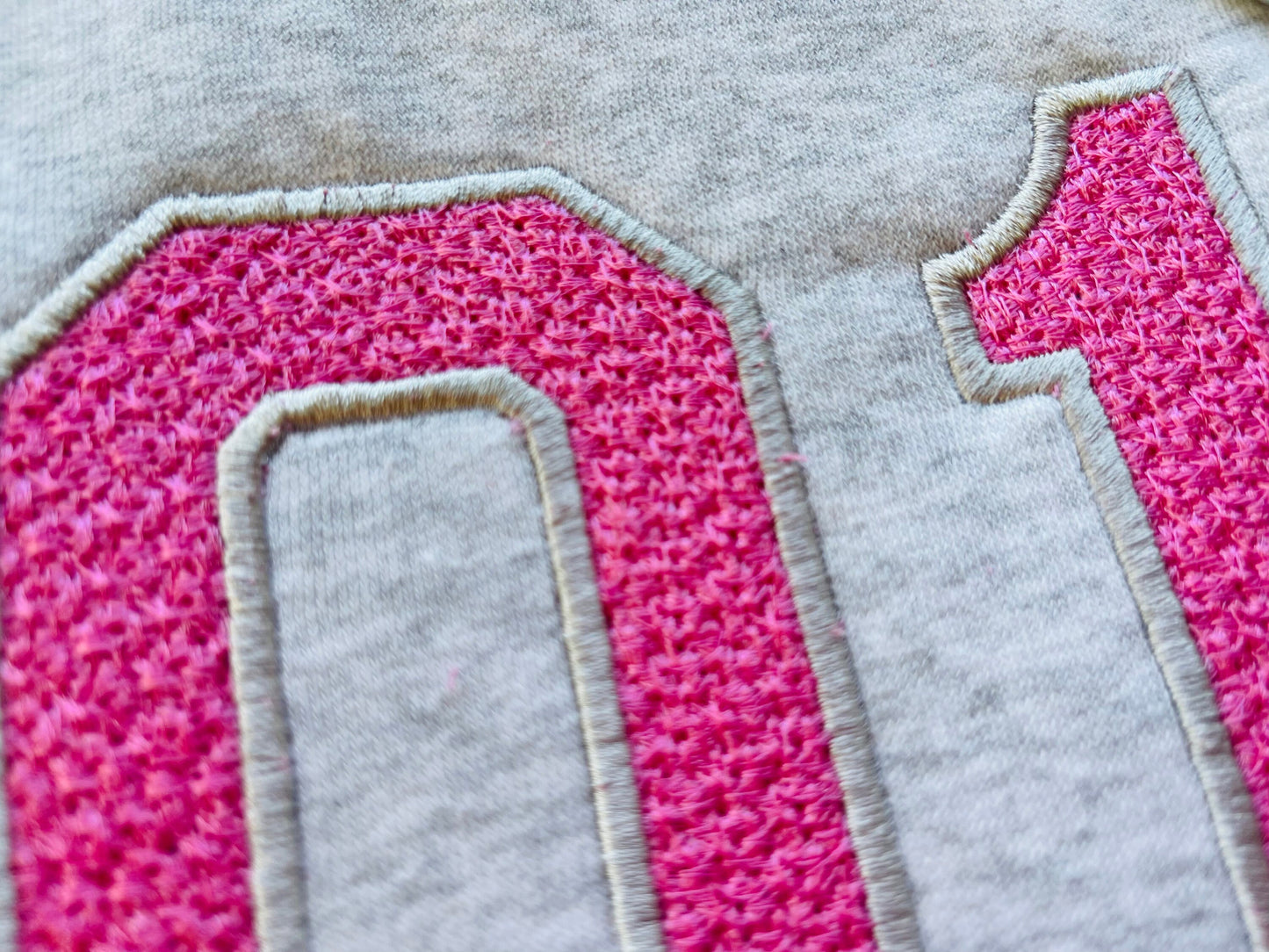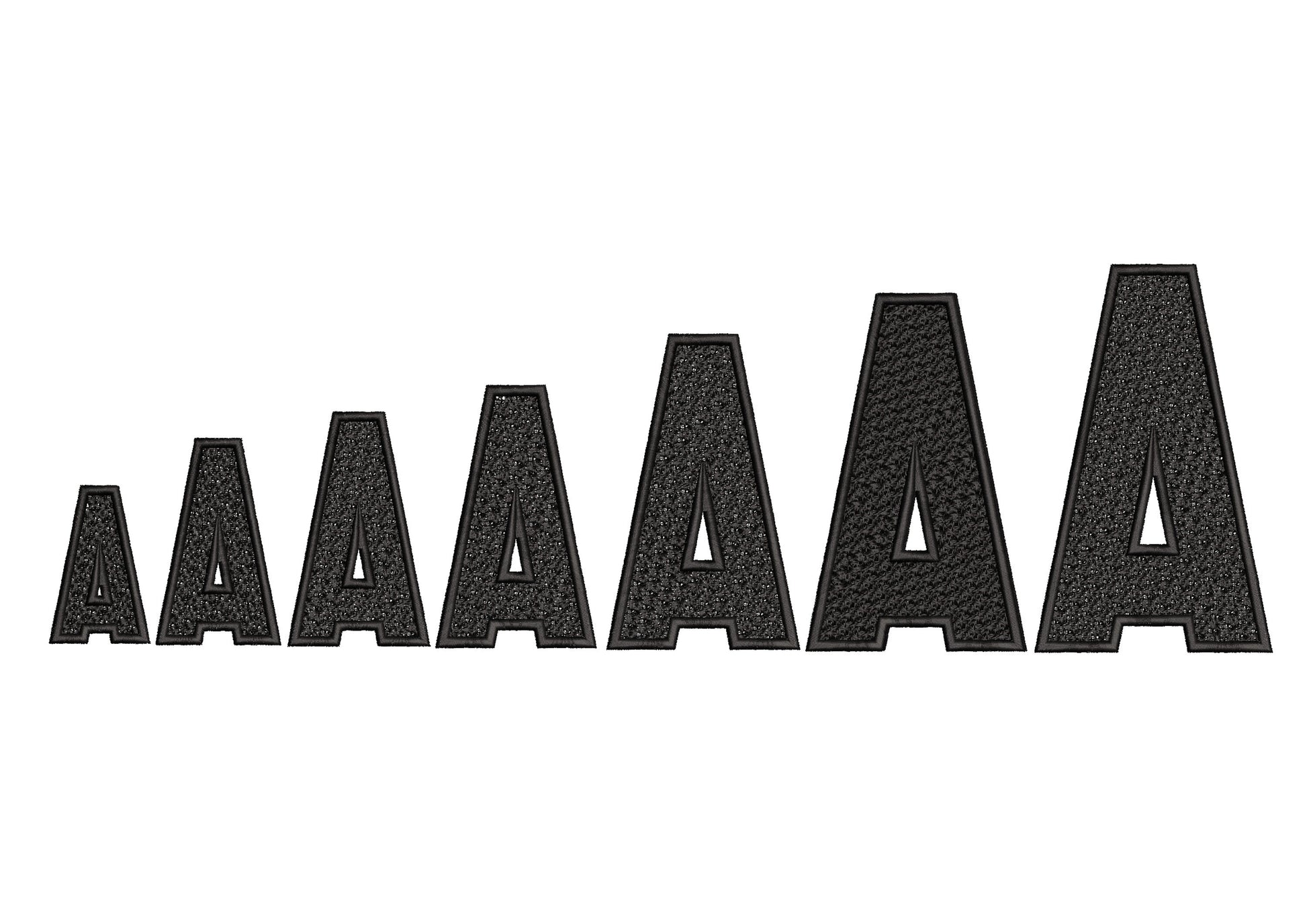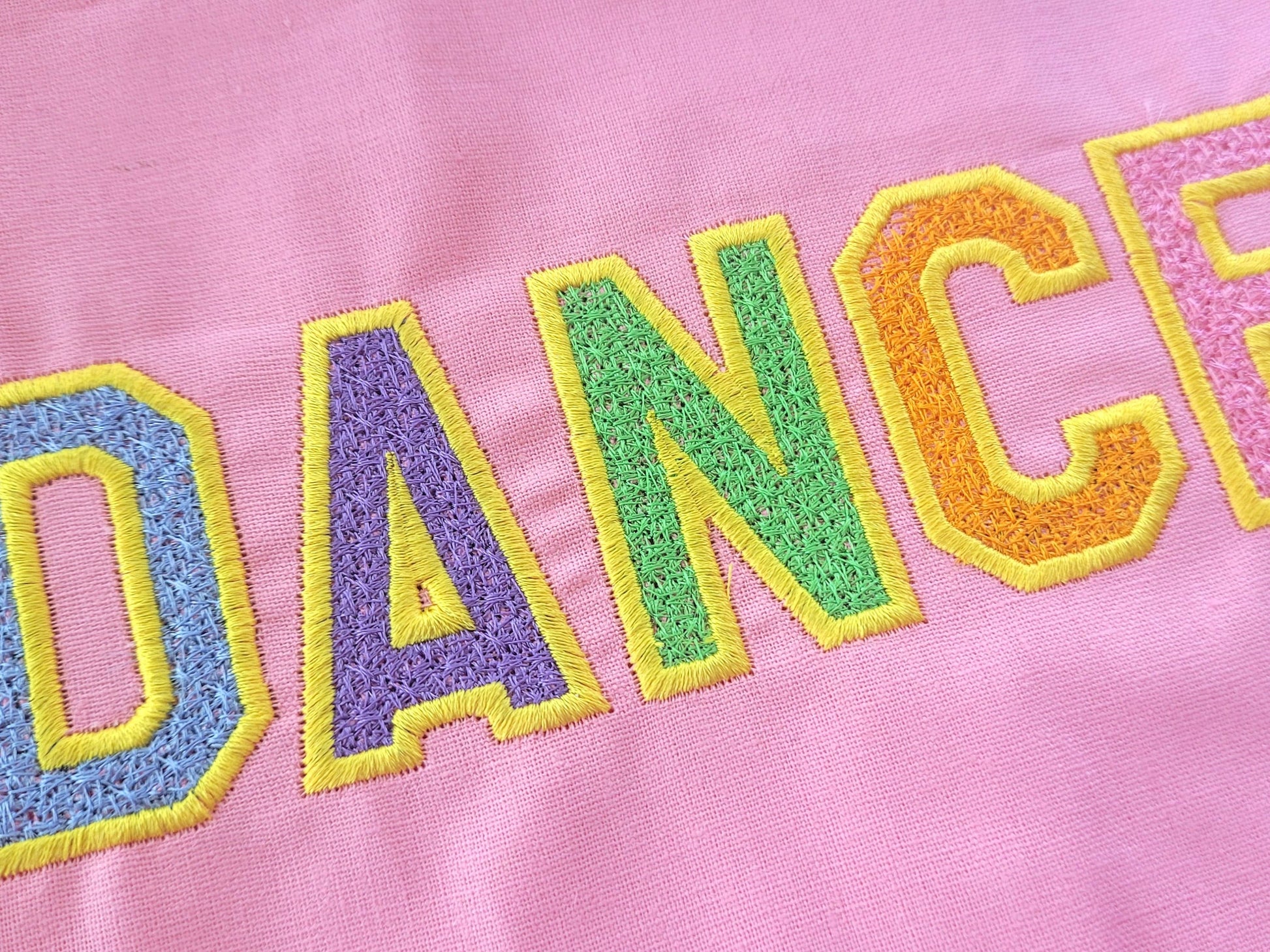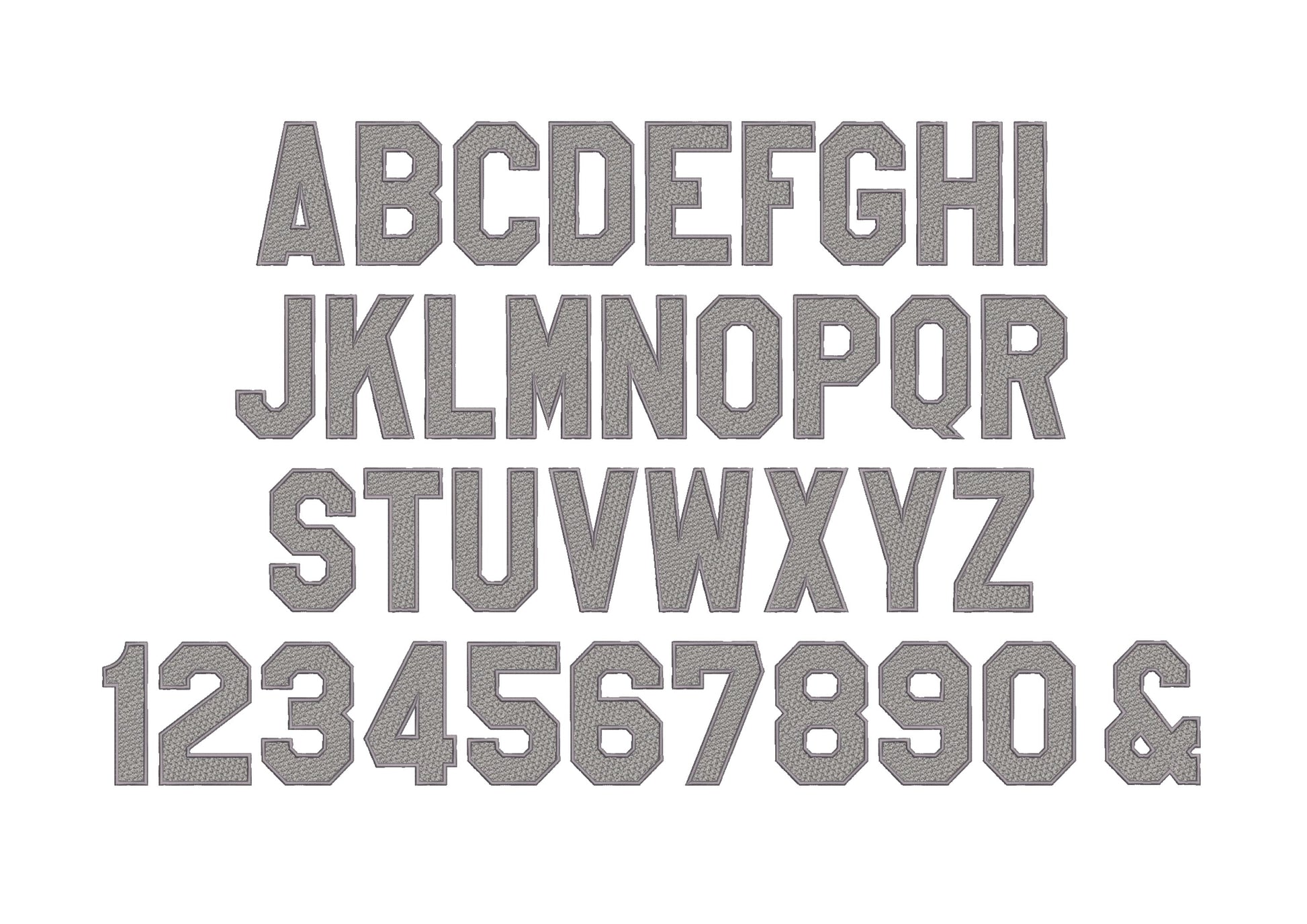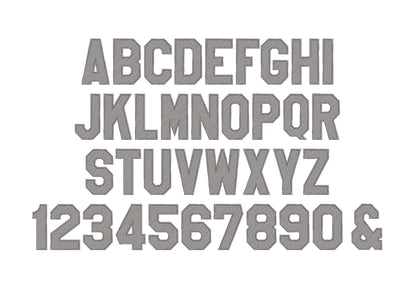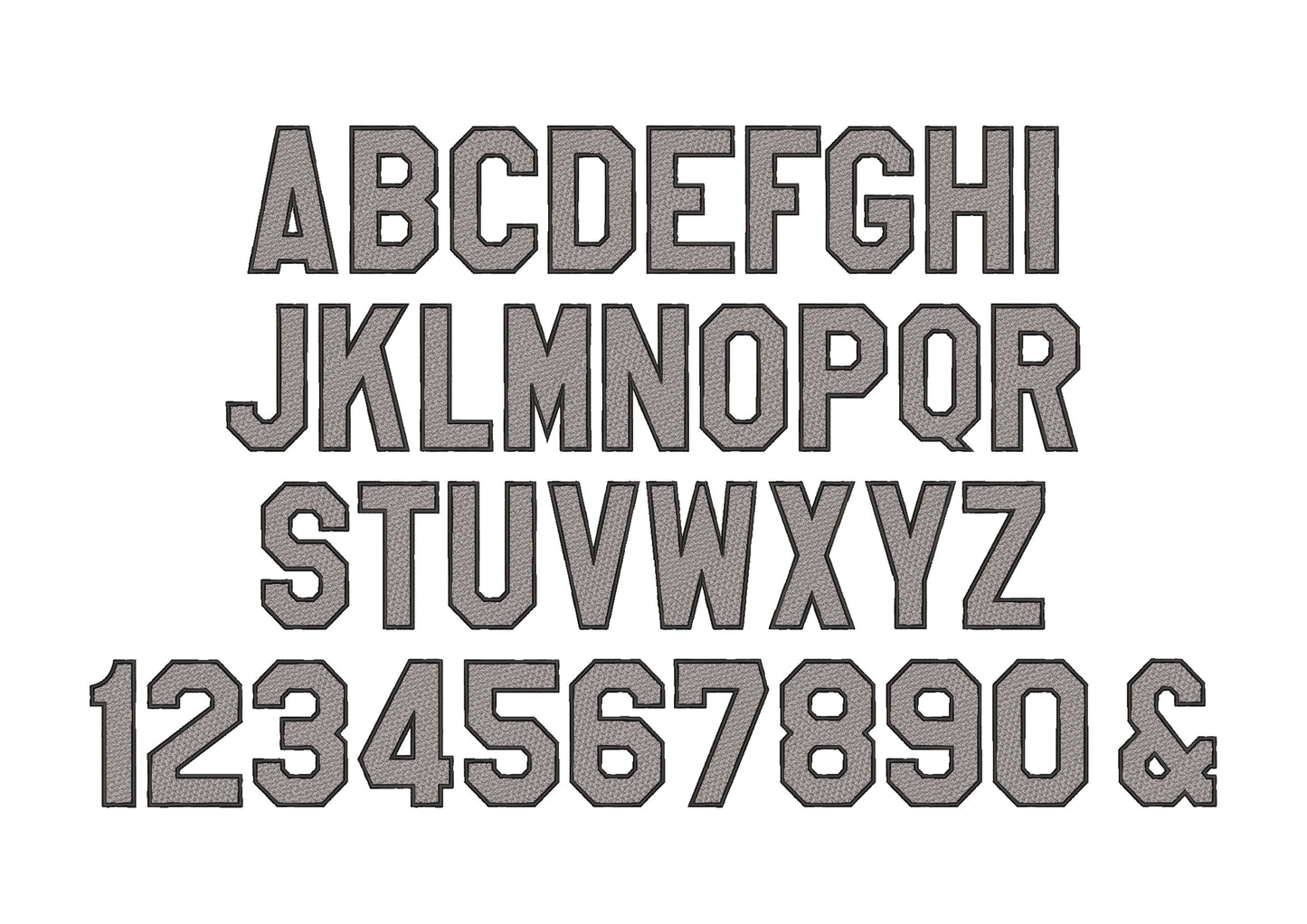
Or click to open the linkA sport block font with a faux chenille look, just load and stitch. Made for letterman-style sweatshirts, jackets, pillows and team gifts.
Uppercase letters A to Z, numbers 0 to 9 and an ampersand. Six sizes: 2.2, 2.9, 3.3, 3.7, 4.4 and 5 inches. Place a piece of fabric in the same color behind so the base fabric does not show through.